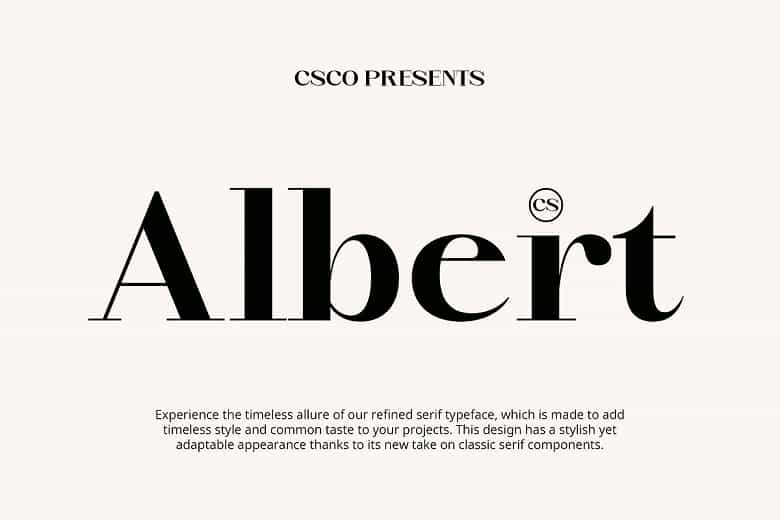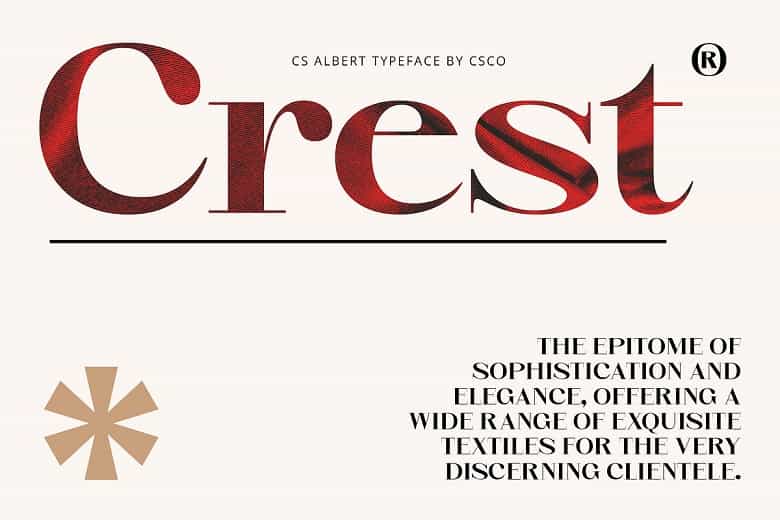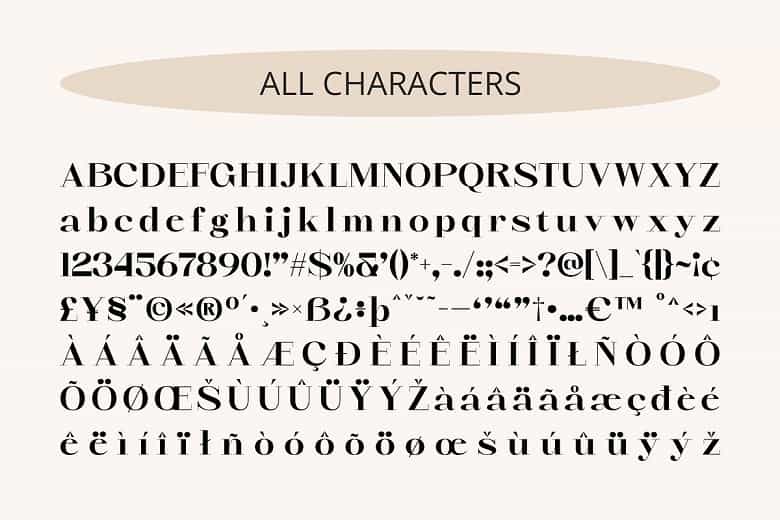
CS Albert is an elegant serif font that represents the Didone style, which is distinguished by a pronounced differentiation of mass and width. This design decision gives a very rich and refined look and feel that makes this control ideal for use in high-end and formal systems.